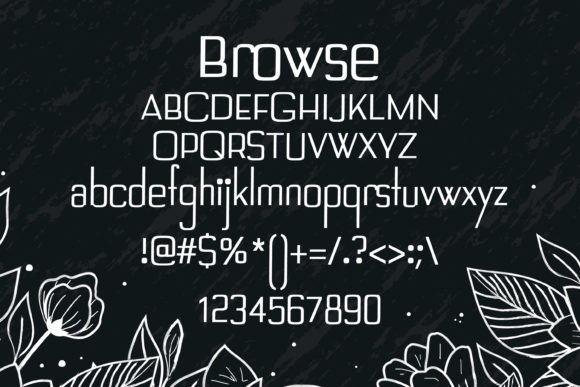
Discover the Power of Browse Font: Elevate Your Designs with a Simple yet Bold Display Font
Are you a designer or crafter looking for a font that can add a touch of originality to your projects? Look no further than Browse Font, a simple and bold display font that’s perfect for a wide range of creative endeavors. In this article, we’ll take a closer look at the features and benefits of Browse Font, and explore how you can use it to take your designs to the next level.
What is Browse Font?
Browse Font is a unique and eye-catching display font that’s designed to make a statement. With its clean lines and bold typography, it’s the perfect choice for anyone looking to add a touch of sophistication and style to their designs. Whether you’re working on a letterhead, title, or stationery, Browse Font is sure to impress.
Key Features of Browse Font
- Simple yet Bold: Browse Font strikes the perfect balance between simplicity and boldness, making it easy to read and visually appealing.
- Original Look: With its unique design, Browse Font is sure to stand out from the crowd and add a touch of originality to your designs.
- Versatile: Browse Font is perfect for a wide range of design projects, from letterheads and titles to stationery and more.
- Easily Readable: Despite its bold design, Browse Font is easy to read, making it perfect for use in a variety of contexts.
Benefits of Using Browse Font
So why should you choose Browse Font for your next design project? Here are just a few benefits of using this versatile and stylish font:
- Adds Visual Interest: Browse Font is sure to add visual interest to your designs, making them more engaging and attention-grabbing.
- Enhances Professionalism: With its clean lines and bold typography, Browse Font can help to enhance the professionalism of your designs.
- Perfect for Branding: Browse Font is a great choice for branding projects, as it’s easy to read and remember, making it perfect for use in logos and other marketing materials.
- Easy to Pair: Browse Font is easy to pair with other fonts, making it perfect for use in a variety of design contexts.
How to Use Browse Font in Your Designs
So how can you use Browse Font in your designs? Here are a few ideas to get you started:
- Letterheads: Use Browse Font to add a touch of style and sophistication to your letterheads.
- Titles: Browse Font is perfect for use in titles, adding a bold and eye-catching touch to your designs.
- Stationery: Add a touch of personality to your stationery with Browse Font, perfect for use in greeting cards, invitations, and more.
- Logos: Browse Font is a great choice for logos, as it’s easy to read and remember, making it perfect for use in branding projects.
Tips for Getting the Most Out of Browse Font
Here are a few tips for getting the most out of Browse Font:
- Experiment with Sizes: Don’t be afraid to experiment with different sizes of Browse Font to find the one that works best for your design.
- Pair with Other Fonts: Browse Font is easy to pair with other fonts, so don’t be afraid to get creative and try out different combinations.
- Use in Different Contexts: Browse Font is versatile, so don’t be afraid to use it in different contexts, from digital designs to print materials.
In conclusion, Browse Font is a simple yet bold display font that’s perfect for designers and crafters looking to add a touch of originality to their projects. With its clean lines, bold typography, and versatile design, Browse Font is sure to elevate your designs and take them to the next level.